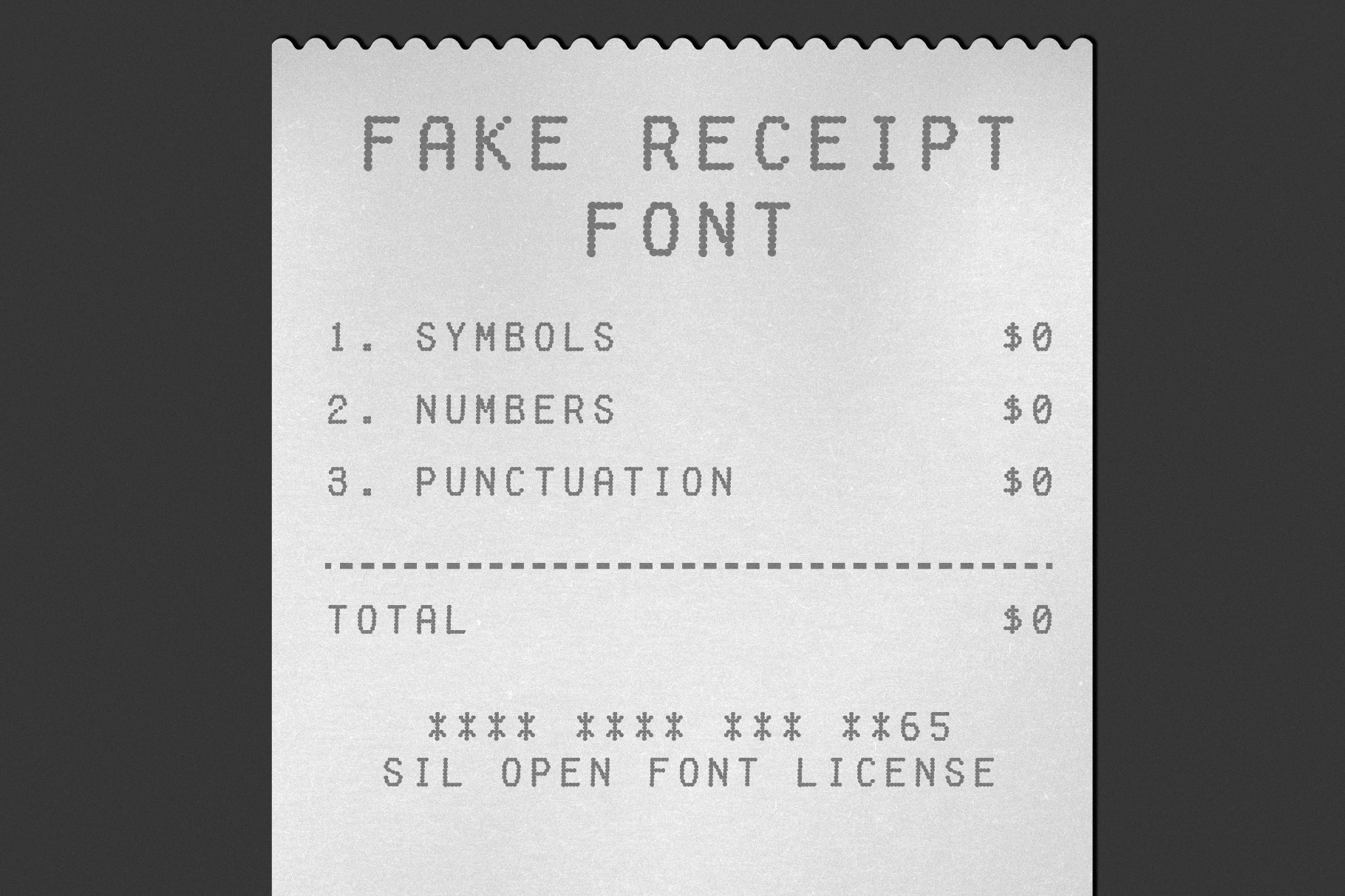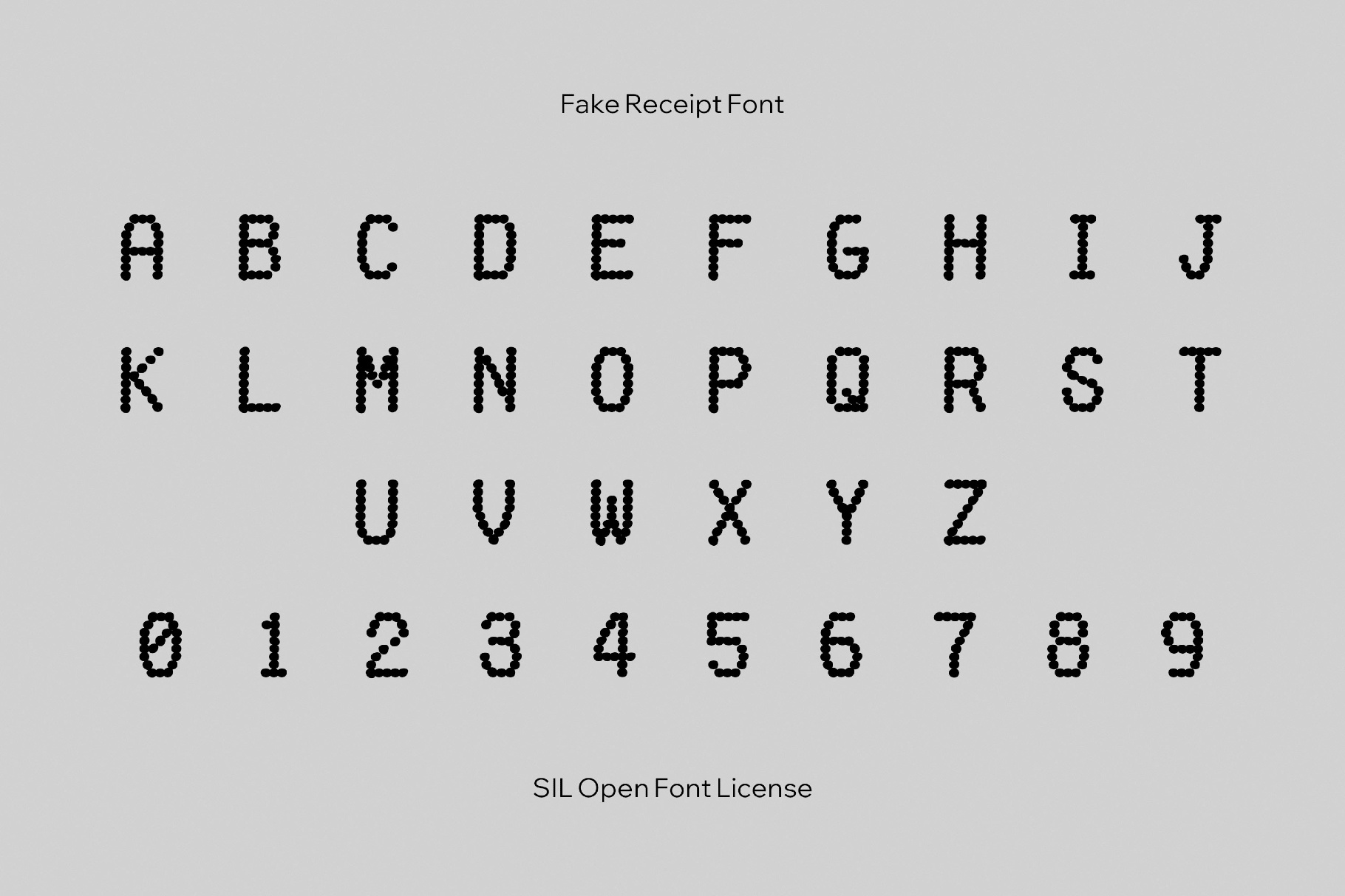
Fake Receipt Font
Fake Receipt
Fake Receipt is a monospaced, utilitarian Y2K-styled font with dotted strokes and a tight vertical rhythm that mirrors thermal printer output and the typography of point-of-sale receipts. You can use it for conceptual posters, satirical graphics, UI mockups for checkout and kiosks, editorial experiments, album artwork, brand storytelling visuals, and social media pieces.
- Only uppercase letters, numbers, punctuation, and symbols.
- International characters with multilingual support across extended Latin scripts.
- Extended support for mathematical symbols and metrics.